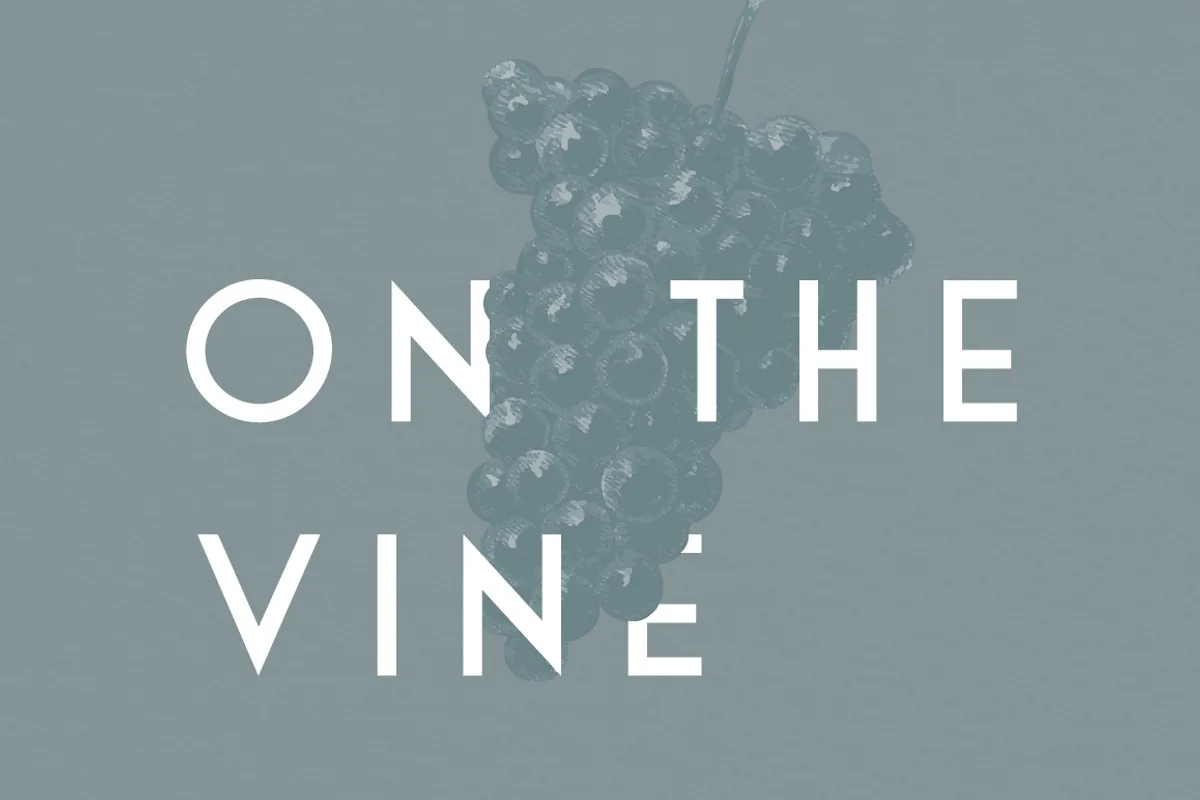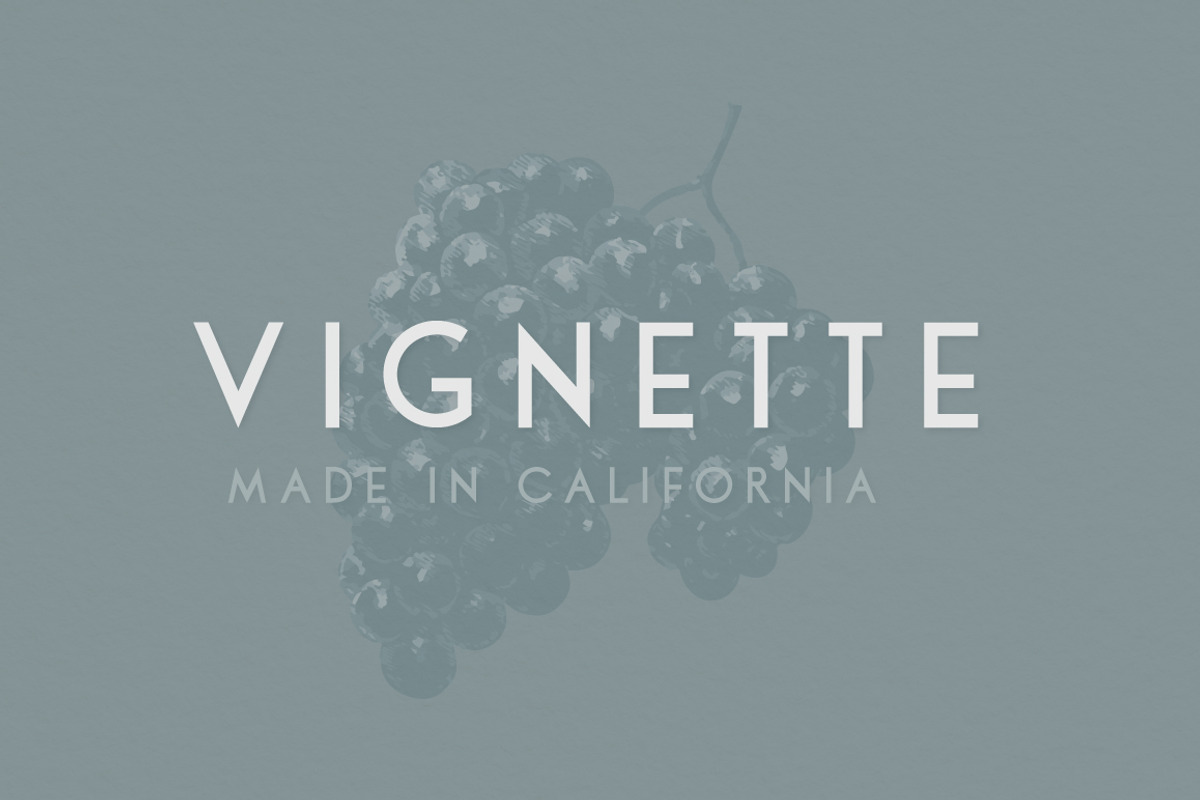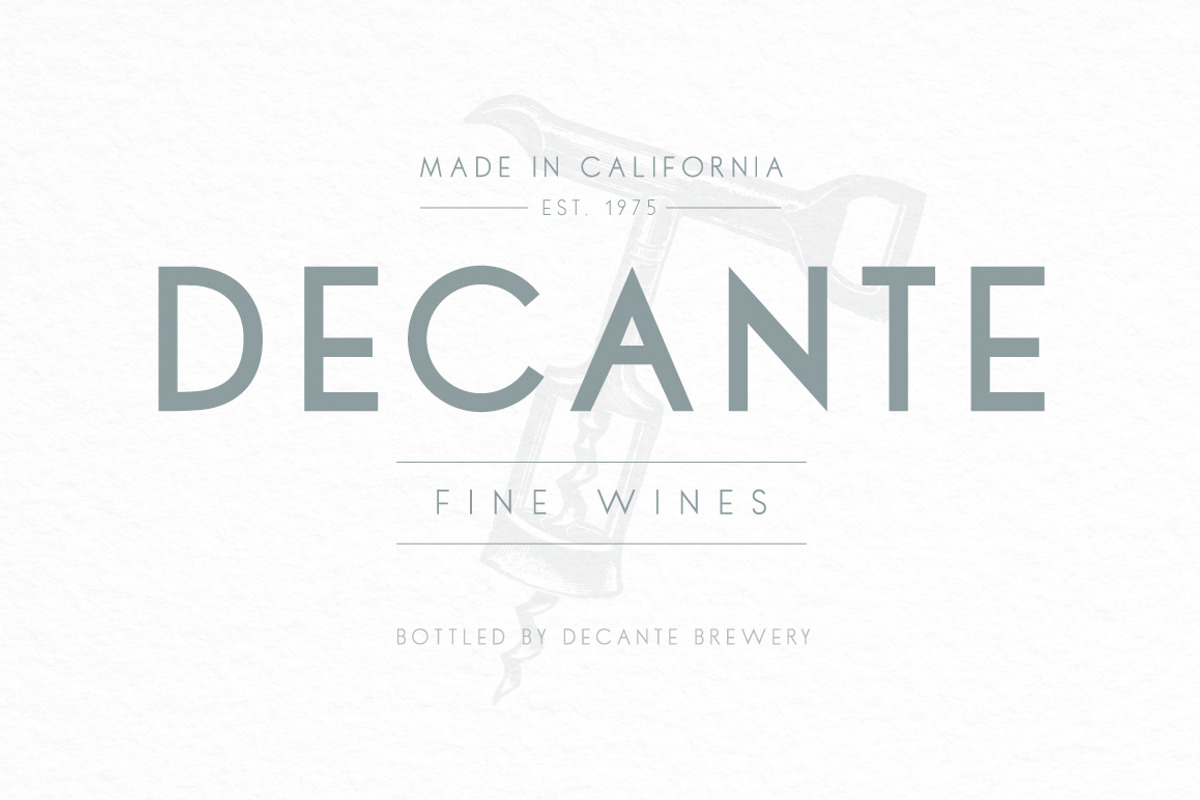
Create beautiful logos, wedding invitations, headers and more with Sinclaire, a classic and versatile sans-serif typeface with an Art Deco style. Sinclaire is a modern sans-serif with a vintage flair that pairs nicely with vintage illustrations and floral graphics. Load up Sinclaire for vintage graphics, headlines, or any project that requires a classic sans serif with a bit of class.